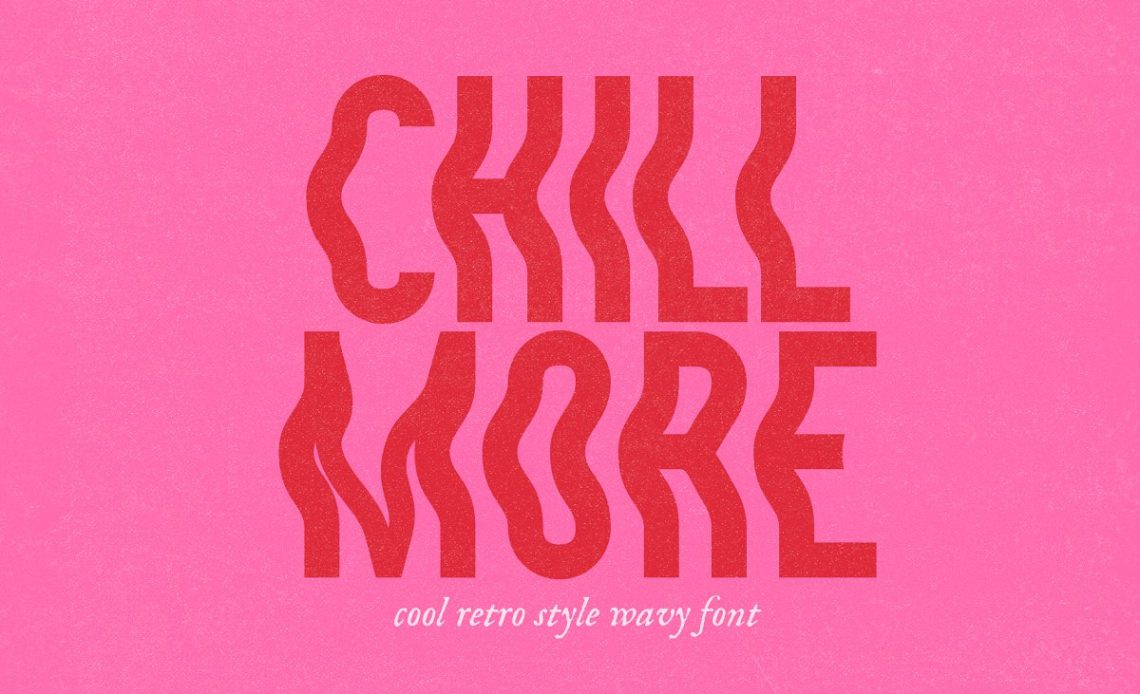
Looking for a fun, eye-catching sans-serif font that adds a touch of cool to any project? Look no further than Chill More, the latest creation from Kaitlynn Albani!
With its unique wavy style, Chill More is the perfect font for short phrases or words that need to stand out. Whether you're creating t-shirt designs, social media posts, advertising materials, or any other type of project, Chill More is sure to make your message pop!